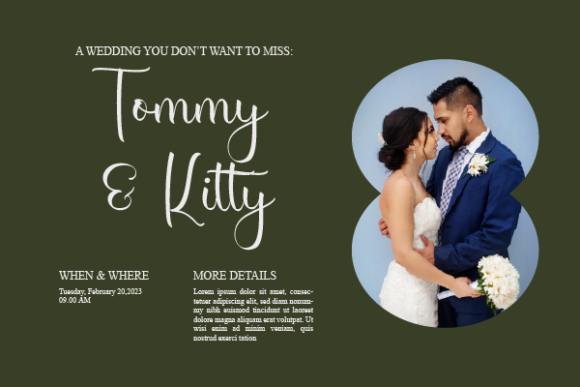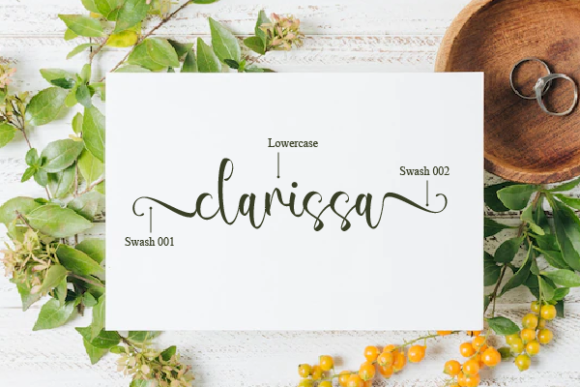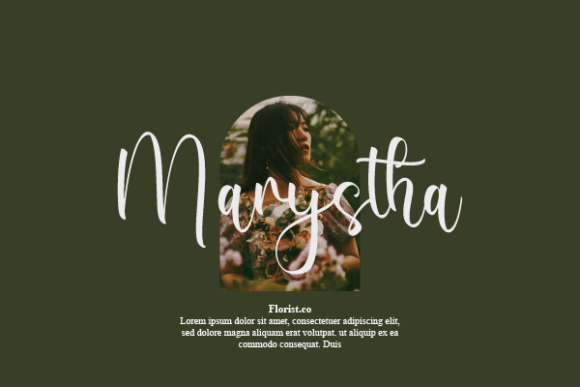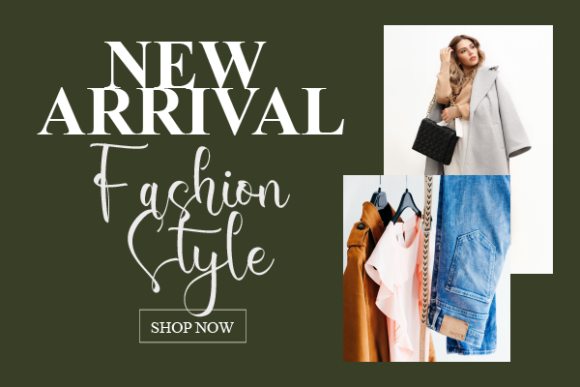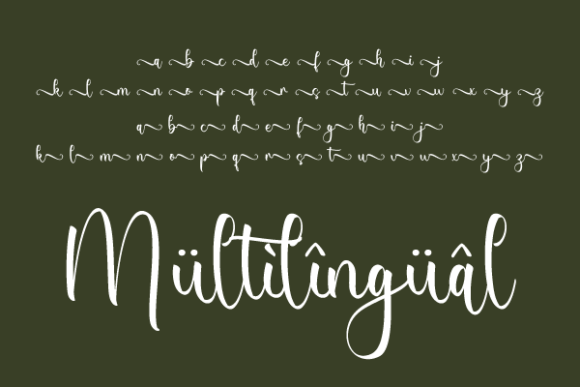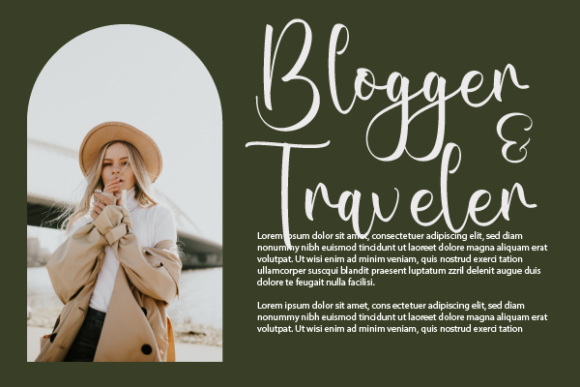
Discover the Elegance of Clarissa Font: A Timeless Handwritten Script
Are you on the hunt for a font that exudes elegance and sophistication? Look no further than Clarissa Font, a beautiful, flowing handwritten script that is sure to capture your heart. With its incredibly distinct and timeless style, Clarissa is the perfect addition to your favorite design projects.
What is Clarissa Font?
Clarissa Font is a carefully crafted handwritten font that boasts an elegant touch, making it ideal for a wide range of design applications. Its flowing lines and curves create a sense of movement and fluidity, giving your designs a dynamic and eye-catching appeal.
Key Features of Clarissa Font
• Elegant and Sophisticated: Clarissa Font is designed to add a touch of elegance and sophistication to your designs. Its refined lines and curves make it perfect for projects that require a high level of refinement.
• Flowing Handwritten Style: The font features a flowing handwritten style that creates a sense of movement and fluidity. This makes it ideal for designs that require a dynamic and eye-catching appeal.
• Timeless Appeal: Clarissa Font has a timeless quality that ensures it will remain relevant for years to come. Its classic design makes it perfect for projects that require a vintage or retro feel.
• Distinctive Style: The font’s incredibly distinct style sets it apart from other handwritten fonts. Its unique character makes it perfect for designers who want to create memorable and impactful designs.
Clarissa Font is versatile and can be used for a wide range of design projects, including:
• Branding and Logo Design: The font’s elegant and sophisticated style makes it perfect for branding and logo design projects.
• Wedding and Event Design: Clarissa Font’s flowing handwritten style makes it ideal for wedding and event design projects, such as invitations, programs, and menus.
• Packaging Design: The font’s distinctive style makes it perfect for packaging design projects, such as product labels and packaging materials.
• Digital Design: Clarissa Font can be used for digital design projects, such as social media graphics, website headers, and email newsletters.
Tips for Using Clarissa Font
Here are some tips for using Clarissa Font in your design projects:
• Pair it with Other Fonts: Clarissa Font can be paired with other fonts to create a unique and visually appealing design. Try pairing it with a bold sans-serif font for a striking contrast.
• Use it for Headings and Titles: The font’s elegant and sophisticated style makes it perfect for headings and titles. Use it to add a touch of elegance to your designs.
• Experiment with Colors: Clarissa Font looks great in a variety of colors. Experiment with different colors to find the one that works best for your design.
Clarissa Font is a beautiful, flowing handwritten script that is sure to capture your heart. With its incredibly distinct and timeless style, it’s the perfect addition to your favorite design projects. Whether you’re a designer or crafter, Clarissa Font is a must-have font that will help you create spectacular designs. So why wait? Fall in love with Clarissa Font today and take your designs to the next level!